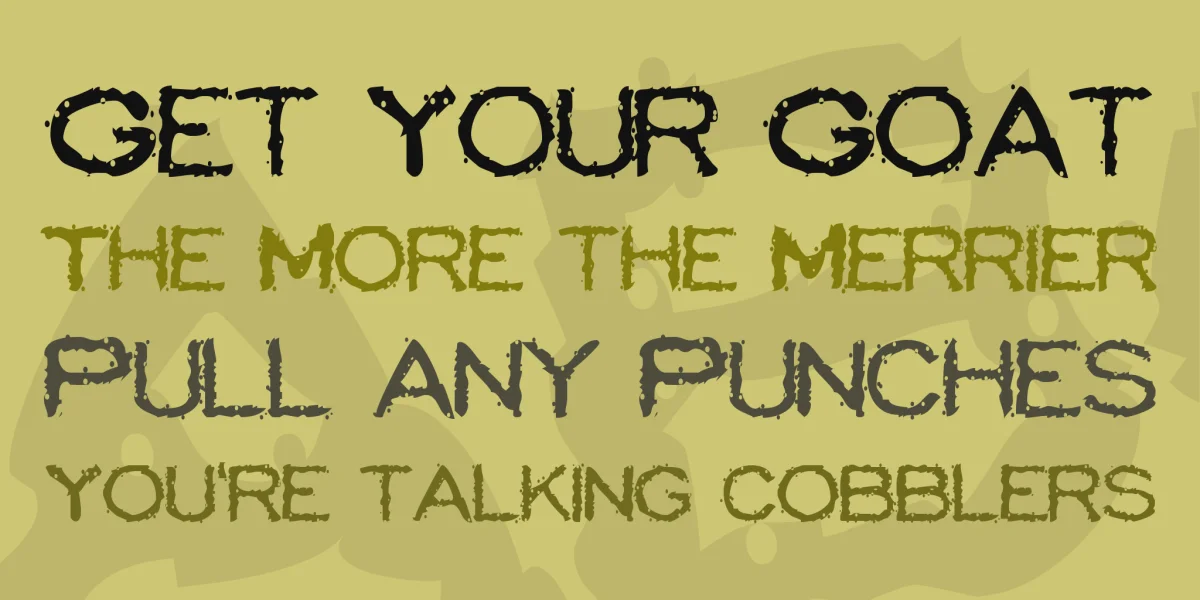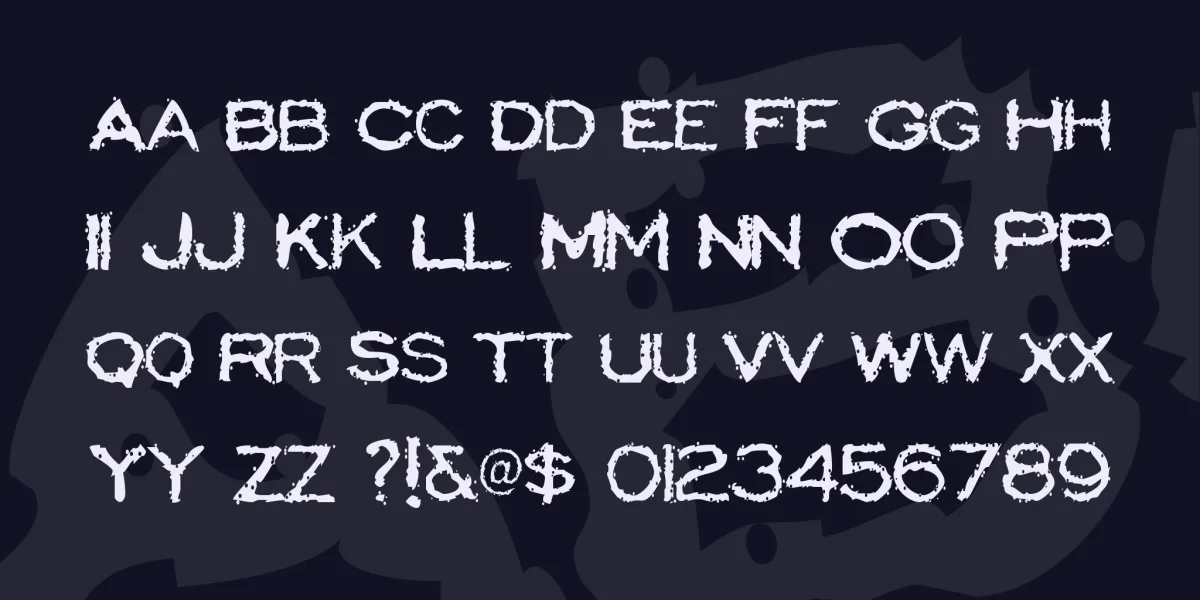
My second font, made in the same fashion as Jiggery Pokery. All the jaggy edges and erratic blotches looked like a scatterbrained person had taken over. But it's "restrained" because the lowercase letters are actually just small caps.